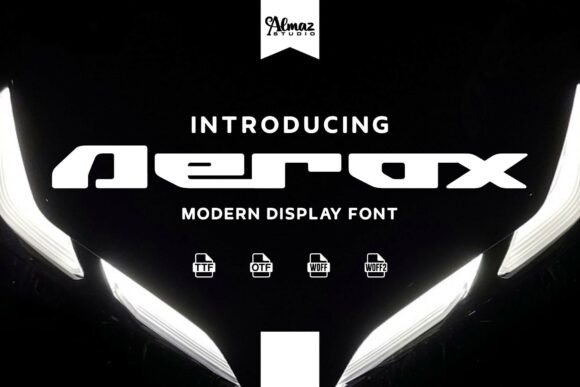
I still remember the frustration of working on a project, hours spent on perfecting every detail, only to be held back by one thing: the font. It was for a futuristic-themed poster, and I needed something that screamed modernity, technology, and speed. After scouring through countless font libraries, I stumbled upon Aerox Font. It was love at first sight! ✨ In this article, I’ll share my experience with Aerox, its features, and how to make the most of it in your designs.
Aerox Font: A Modern Display Font
Aerox is a modern display font designed with a bold, futuristic character. Its clean geometric shapes, smooth rounded corners, and aerodynamic letter cuts create a strong sense of speed, technology, and modernity. Each character is crafted with unique proportions, giving the font a striking and distinctive visual presence. Aerox is ideal for a wide range of creative applications, including automotive branding, technology projects, esports, posters, UI/UX design, logos, and futuristic-themed visuals.
Honest Review: What I Love and What I Don’t
• ✅ Unique and distinctive visual presence: Aerox stands out from other fonts, making it perfect for designs that need a bold statement.
• ✅ Clean and geometric design: The font’s clean lines and geometric shapes give it a modern and professional look.
• ✅ OpenType features and glyphs: Aerox offers a range of OpenType features and glyphs, making it perfect for designs that require a bit more creativity.
• ⚠️ Limited use in body text: Aerox is a display font, and its bold design may not be suitable for long blocks of text.
• ⚠️ No italic or oblique versions: Aerox only comes in a single style, which may limit its use in certain designs.
The Designer Behind Aerox
Aerox was designed by a team of creatives who wanted to create a font that embodied the spirit of modernity and technology. Inspired by aerodynamic shapes and futuristic designs, they crafted a font that would be perfect for creative projects that require a bold statement. The design process involved experimenting with different shapes and styles, ultimately resulting in a unique and distinctive font that’s both modern and professional.
Q: What is Aerox Font?
Aerox Font is a modern display font designed with a bold, futuristic character. It’s perfect for creative projects that require a strong sense of speed, technology, and modernity.
Q: Does Aerox have OpenType features and glyphs?
Yes, Aerox offers a range of OpenType features and glyphs, making it perfect for designs that require a bit more creativity.